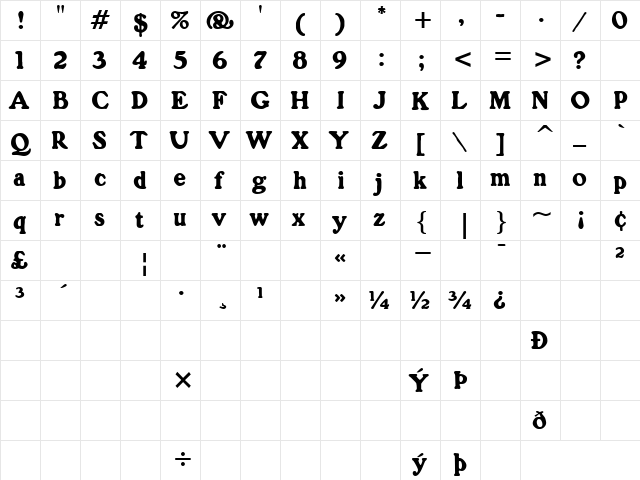
Grain Regular
Design Context for Grain Typeface
Grain offers clean, dependable letterforms without strong stylistic allegiance, making it a practical choice for designers who need flexibility.